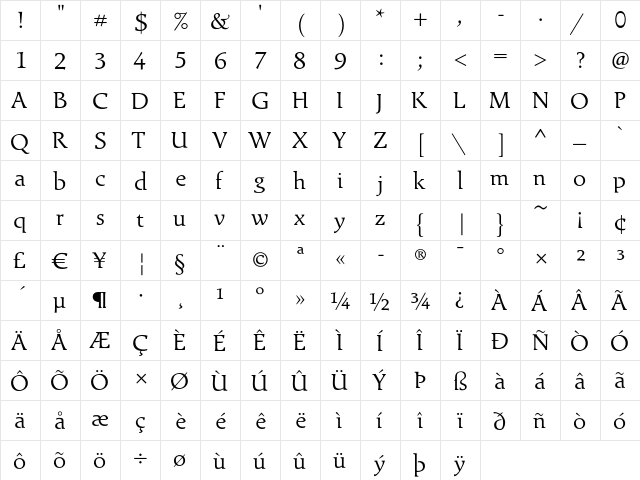
Exlibris Regular
Design Context for Exlibris Typeface
Exlibris takes a measured approach to typography — its balanced proportions and neutral character make it a reliable workhorse for both digital and print work.